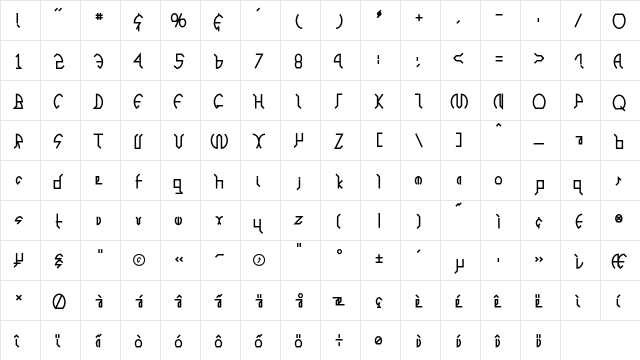
Kitsch Regular
Design Context for Kitsch Typeface
Kitsch is a composed and adaptable typeface that performs quietly and consistently across a wide range of design contexts.